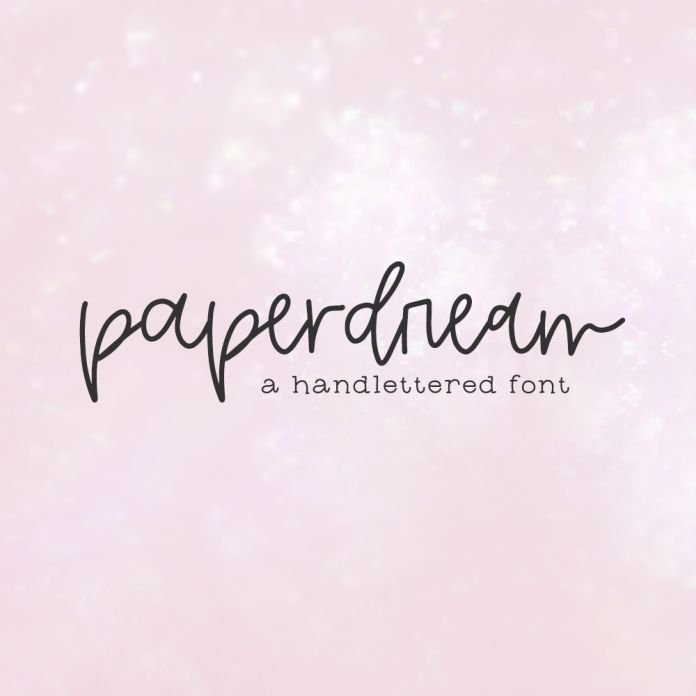
Introducing Paperdream, a monoline modern calligraphy font with alternates & ligatures.
Paperdream is best for:
- feminine, crafty projects with your Cricut or Silhouette machine, or your SVG design business
- 26 alternates
- 13 ligatures - bb, dd, ee, ff, gg, ll, mm, nn, oo, pp, rr, ss, tt